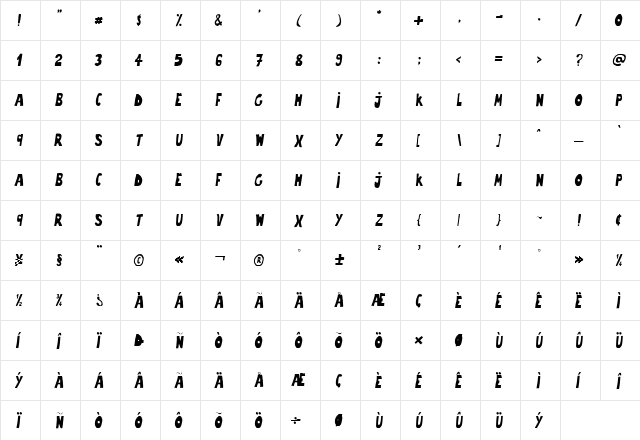
trouble-italique Italic
| Foundry | Ewen Prigent |
| Designer | Ewen Prigent |
trouble-italique is a composed and adaptable typeface that performs quietly and consistently across a wide range of design contexts. The slanted form adds forward momentum and visual energy.